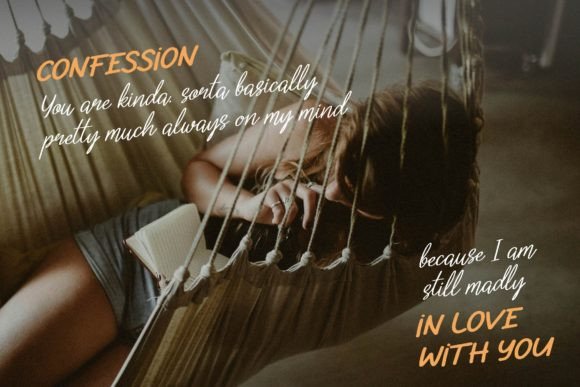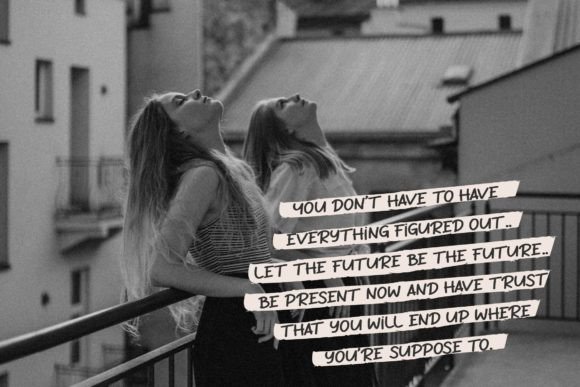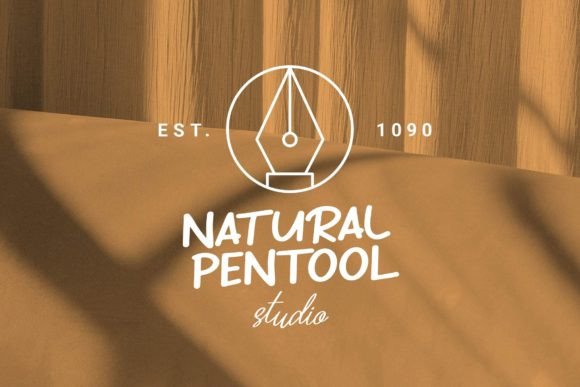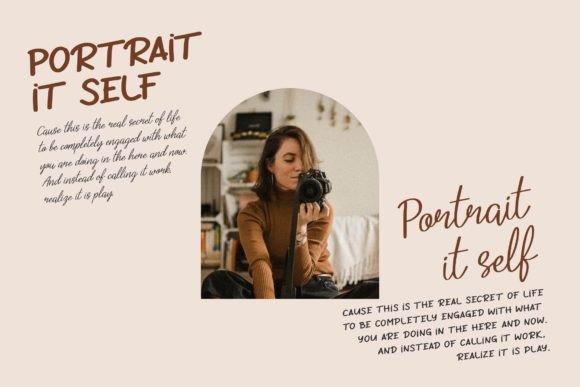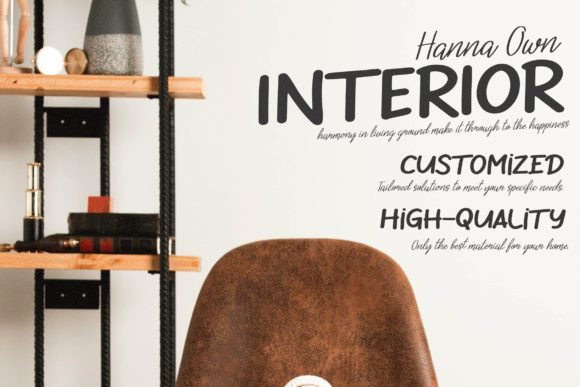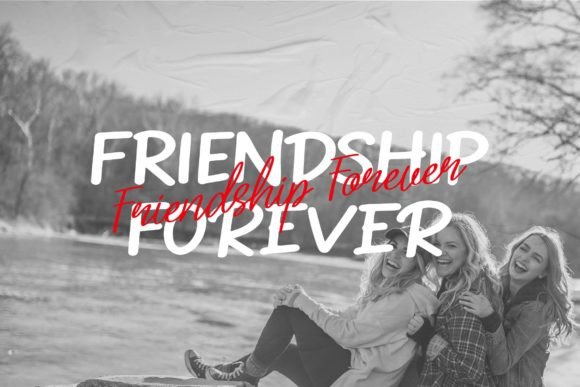
Introduction to Identic Partner Font Font
Fonts play a crucial role in design, and the Identic Partner Font font is a typeface that brings both character and versatility to any project. Whether you’re working on a branding project, a website, or a print design, the Identic Partner Font font offers a unique style that can elevate your work.
Identic Partner is a pair of handwritten fonts designed to work perfectly together.
One font has bold and strong letters, while the other is softer and more delicate When used together, they create a balanced and beautiful look, making your designs stand out.
Key Features of Identic Partner Font Font
Why Choose Identic Partner Font Font?
The Identic Partner Font font is more than just a typeface – it’s a design tool that helps you communicate your message with style and clarity. Its unique character set and versatile design make it suitable for a wide range of applications, from elegant invitations to bold headlines.
With its carefully crafted letterforms and balanced proportions, the Identic Partner Font font ensures readability and visual appeal across all mediums.
What makes Identic Partner Font font special?
The Identic Partner Font font stands out with its unique design, exceptional readability, and versatility across various design applications.